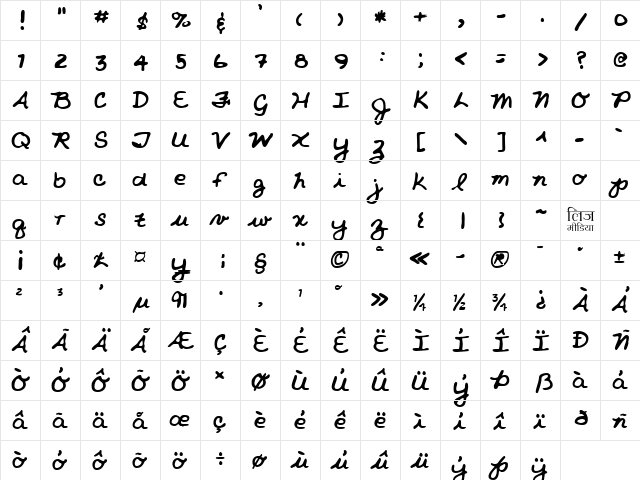
LEHN213 Regular
Design Context for LEHN213 Typeface
LEHN213 takes a measured approach to typography — its balanced proportions and neutral character make it a reliable workhorse for both digital and print work.